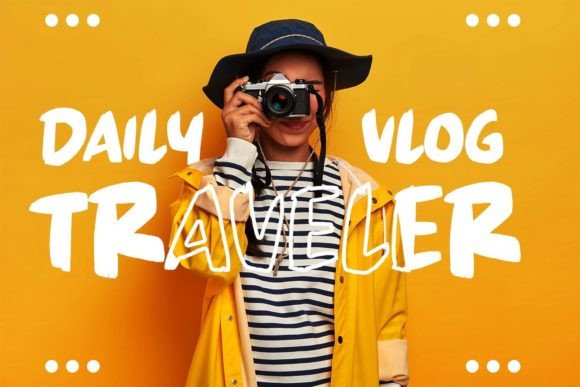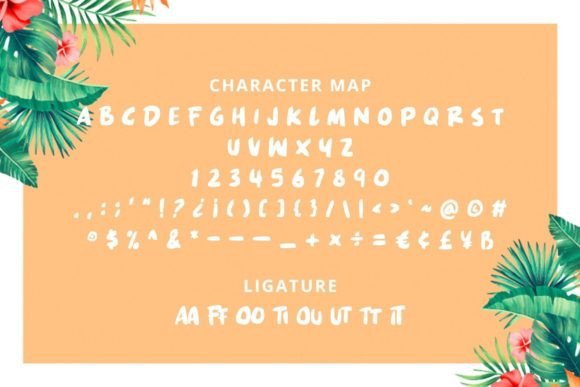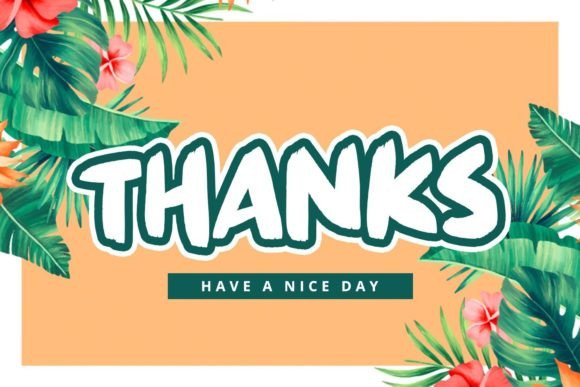
The Great Paradise Font: A Bold and Playful Addition to Your Design Arsenal
First Impressions: A Love Letter to Great Paradise
Great Paradise is a bold display font that exudes an authentic and playful vibe. It’s perfect for making a statement in your designs, and I’m excited to share with you why I’m obsessed with it.
What I Love About Great Paradise
- ✨ Bold and eye-catching: Great Paradise is not for the faint of heart. It’s a statement font that demands attention.
- ✅ Playful and authentic feel: The font has a unique personality that’s both fun and genuine.
- 🌈 Versatile: Use it for branding, logo designs, lettering, logotypes, clothing, magazines, packaging, posters, shopping bags, t-shirts, book covers, photography, special events, and more.
- 🤔 Legibility at small sizes: As with many bold fonts, Great Paradise may not be the best choice for body text or small sizes.
- ⚠️ Limited use of OpenType features: While Great Paradise does offer some OpenType features, it may not have the full range of features you’re used to with other fonts.
The Story Behind Great Paradise
| What is Great Paradise font best used for? | Great Paradise is perfect for bold headlines, branding, logo designs, and any project that requires a playful and authentic feel. |
| Does Great Paradise support OpenType features? | Yes, Great Paradise offers some OpenType features, including Stylistic Alternates and Glyphs. |